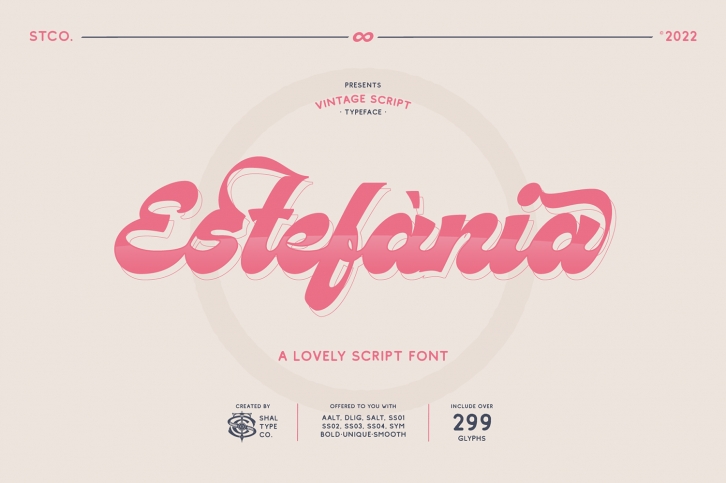
Estefania is a retro and bold styled handwritten font. Using assertive and contrast strokes to get eye-catchy and smooth looking vibes, this font will add a nostalgic touch to each of your designs.